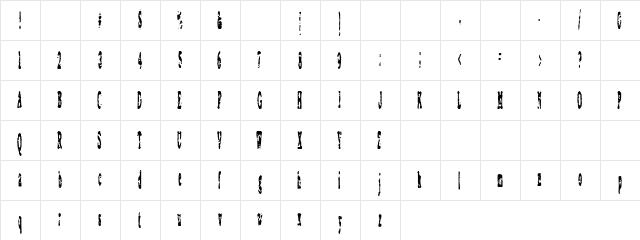
Plenty Space Regular
Design Context for Plenty Space Typeface
Plenty Space is a composed and adaptable typeface that performs quietly and consistently across a wide range of design contexts.